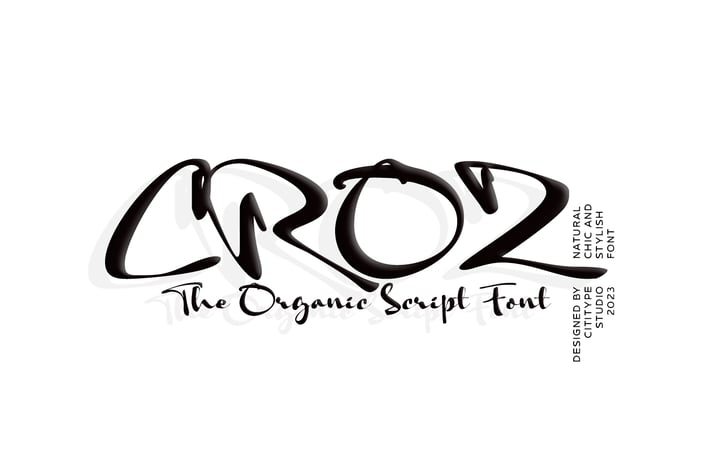
Croz - Font with Natural Touch
Croz Script is a raw and organic script typeface. Its cool appereance is carefully handcrafted to straight away grab the attention of the viewers. the shapes give this font a modern, chic, fun, funky vibe.
Suitable if use for logos, posters, craft project, portfolio, headlines, brandings, etc.